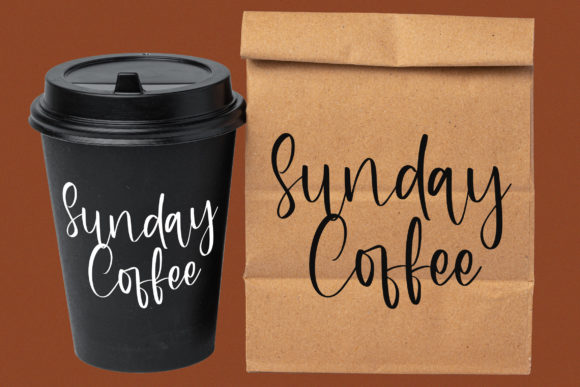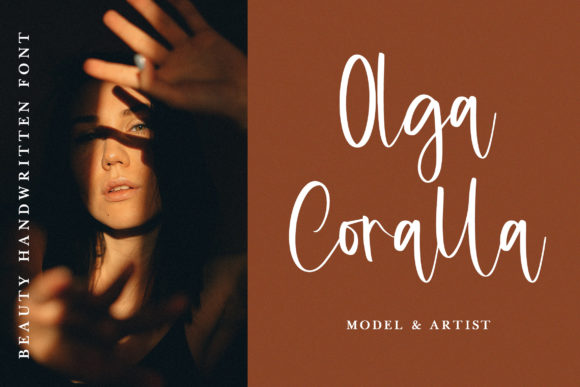
Destiny Bestie Font
db-ku.com - Script & Handwritten -- Destiny Bestie is a free-flowing script font created for packaging products, invitation cards, flyers, mockups, event posters, and anything else that requires high-quality vibes. It has a beautiful and balanced character, that fits well with the large design pool.